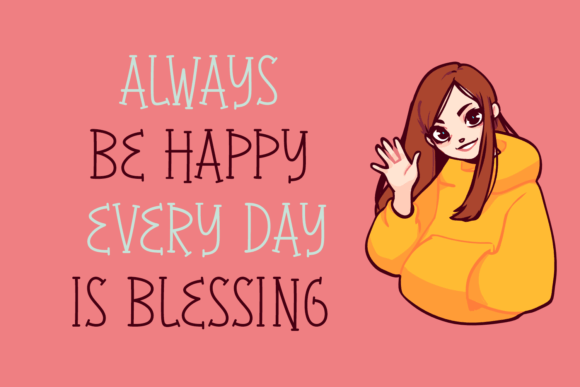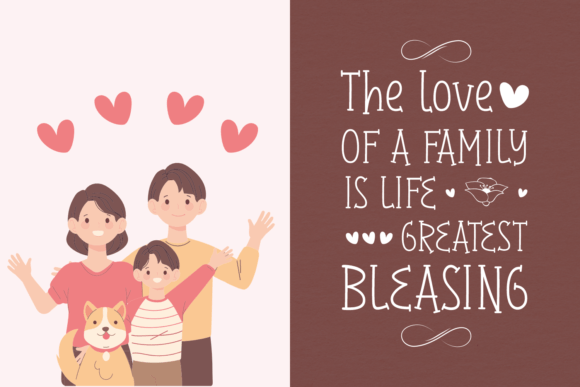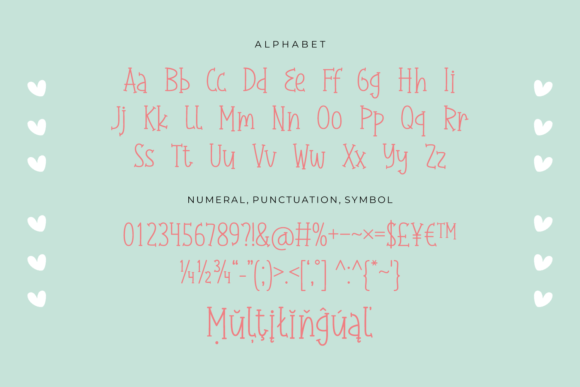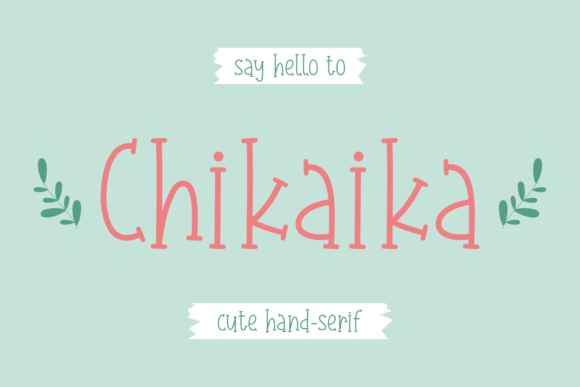
Introducing Chikaika Font: The Playful Handwritten Serif Font for Creative Minds
Are you a designer or crafter looking for a font that can add a touch of personality and whimsy to your creative projects? Look no further than Chikaika Font! This lovely handwritten serif font is sure to capture your heart with its playful characters and bold serifs, making it perfect for bringing your most fabulous ideas to life.
What Makes Chikaika Font So Special?
Chikaika Font is a unique and charming typeface that stands out from the crowd. Its handwritten serif style gives it a personal and approachable feel, while the bold serifs add a touch of sophistication and elegance. The playful characters are carefully crafted to convey a sense of fun and creativity, making this font perfect for designers and crafters who want to add a dash of personality to their work.
Key Features of Chikaika Font
- Handwritten serif style: Chikaika Font features a beautiful handwritten serif style that gives it a personal and unique touch.
- Playful characters: The font’s playful characters are designed to add a touch of whimsy and fun to your creative projects.
- Bold serifs: The bold serifs add a touch of sophistication and elegance to the font, making it perfect for a wide range of design applications.
- Easy to read: Despite its playful nature, Chikaika Font is easy to read and can be used for both headings and body text.
Chikaika Font is perfect for designers and crafters who want to add a touch of personality to their creative projects. Whether you’re working on a logo, branding materials, social media graphics, or craft projects, this font is sure to inspire your creativity and help you bring your ideas to life.
Examples of Projects That Chikaika Font is Perfect For
- Logos and branding materials: Chikaika Font’s unique and playful style makes it perfect for creating memorable logos and branding materials.
- Social media graphics: The font’s bold serifs and playful characters make it perfect for creating eye-catching social media graphics.
- Craft projects: Chikaika Font is perfect for crafters who want to add a personal touch to their projects, such as handmade cards, scrapbooking, and DIY crafts.
- Wedding and event planning: The font’s elegant and sophisticated style makes it perfect for wedding and event planning materials, such as invitations, menus, and signage.
Tips for Getting the Most Out of Chikaika Font
- Experiment with different font sizes: Chikaika Font looks great in a variety of font sizes, from large headings to smaller body text.
- Play with font colors: The font’s bold serifs and playful characters look great in a range of colors, from bright and bold to soft and pastel.
- Combine with other fonts: Chikaika Font pairs well with a range of other fonts, so don’t be afraid to experiment with different font combinations.
Chikaika Font is a unique and charming handwritten serif font that’s perfect for designers and crafters who want to add a touch of personality to their creative projects. With its playful characters, bold serifs, and easy-to-read style, this font is sure to inspire your creativity and help you bring your ideas to life. So why not give Chikaika Font a try in your next design project and see the difference it can make?